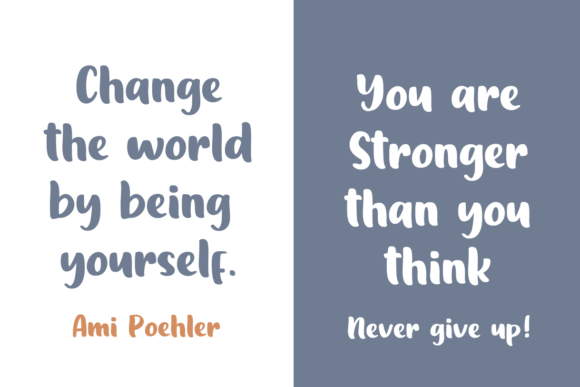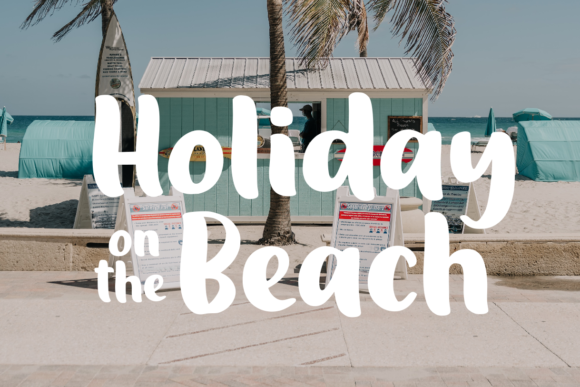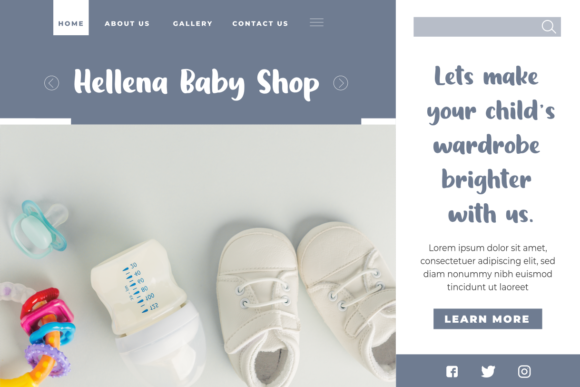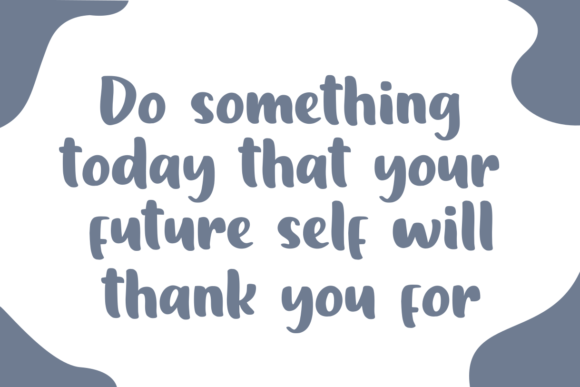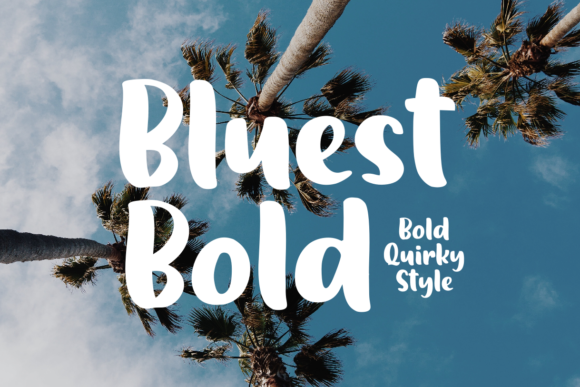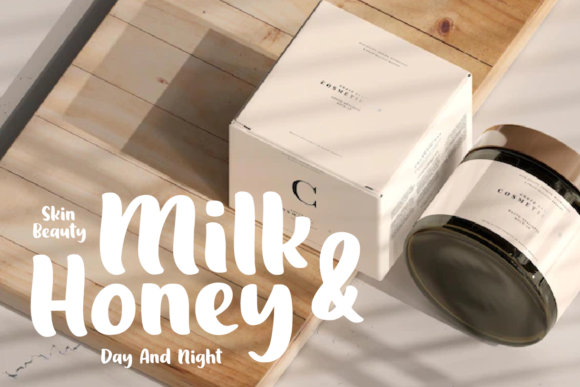
Billy Hatter Font: The Quirky and Trendy Handwritten Font for Designers and Crafters
Are you a designer or crafter looking for a unique and eye-catching font to add some personality to your projects? Look no further than the Billy Hatter font! This quirky and trendy handwritten font is perfect for a variety of design projects and crafting ideas. In this article, we’ll take a closer look at the Billy Hatter font, its features, and how you can use it to elevate your designs.
What is Billy Hatter Font?
Billy Hatter font is a fun and playful handwritten font that is sure to capture attention. Its bouncy and charming letters make it perfect for designs that require a touch of whimsy and personality. The font is inspired by the classic illustrations of Lewis Carroll’s “Alice’s Adventures in Wonderland” and is reminiscent of the Mad Hatter’s eccentric and playful nature.
Features of Billy Hatter Font
The Billy Hatter font has several features that make it a great choice for designers and crafters. Some of its key features include:
- Quirky and playful letters: The Billy Hatter font features letters that are bouncy and full of personality. Each letter is carefully crafted to give your designs a unique and eye-catching look.
- Handwritten style: The font has a handwritten style that gives it a personal and organic feel. It’s perfect for designs that require a touch of warmth and personality.
- Trendy and modern: Despite its classic inspiration, the Billy Hatter font has a trendy and modern feel that makes it perfect for contemporary designs.
- Versatile: The font is versatile and can be used for a variety of design projects, from digital designs to print materials.
How to Use Billy Hatter Font in Your Designs
The Billy Hatter font is perfect for a variety of design projects, including:
- Digital designs: Use the Billy Hatter font in your digital designs, such as social media graphics, blog posts, and website headers.
- Print materials: The font is perfect for print materials, such as brochures, flyers, and business cards.
- Crafting projects: Use the Billy Hatter font in your crafting projects, such as scrapbooking, card making, and DIY signs.
- Branding and packaging: The font is also great for branding and packaging designs, such as product labels and packaging materials.
Tips for Using Billy Hatter Font
Here are some tips for using the Billy Hatter font in your designs:
- Use it sparingly: While the Billy Hatter font is fun and playful, it can be overwhelming if used excessively. Use it sparingly to add a touch of personality to your designs.
- Pair it with other fonts: The Billy Hatter font pairs well with other fonts, such as sans-serif fonts. Experiment with different font combinations to find the perfect look for your design.
- Experiment with colors: The Billy Hatter font looks great in a variety of colors. Experiment with different colors to find the perfect look for your design.
The Billy Hatter font is a quirky and trendy handwritten font that is perfect for designers and crafters. Its bouncy and charming letters make it ideal for designs that require a touch of whimsy and personality. With its versatility and modern feel, the Billy Hatter font is sure to become a favorite in your design arsenal. So why not give it a try and see how it can elevate your designs?
Whether you’re a seasoned designer or a crafter looking for a unique font, the Billy Hatter font is a great choice. Its ease of use and flexibility make it perfect for a variety of design projects and crafting ideas. So go ahead, get creative, and have fun with the Billy Hatter font!